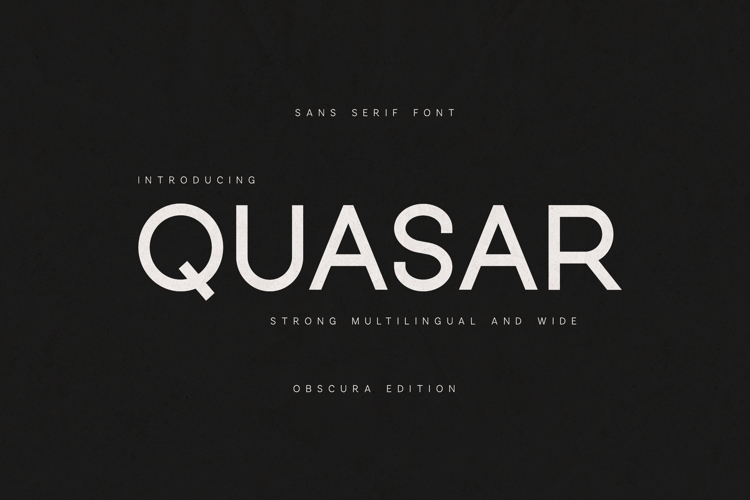
Quasar Modern Sans Serif Font
Quasar is a modern sans serif typeface designed with clean geometry, balanced proportions, and a contemporary aesthetic. The font delivers strong visual clarity while maintaining a refined and minimal appearance, making it ideal for modern branding and professional design work.
With its smooth curves and structured letterforms, Quasar creates a confident typographic presence that works beautifully in both headlines and large text compositions. The design blends modern simplicity with subtle character, allowing it to perform across a wide range of creative applications.
Quasar is perfect for designers looking for a versatile and elegant sans serif font that works seamlessly in branding, editorial layouts, digital design, and visual identity systems.
The typeface includes uppercase and lowercase letters, numbers, punctuation, and extended multilingual language support, making it suitable for international design projects.
Quasar brings together modern design precision and versatile usability, making it a valuable addition to any professional font library.